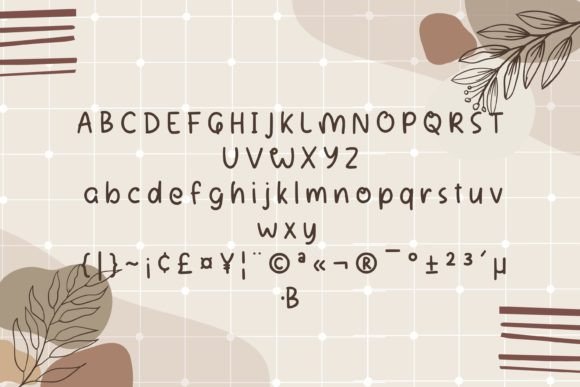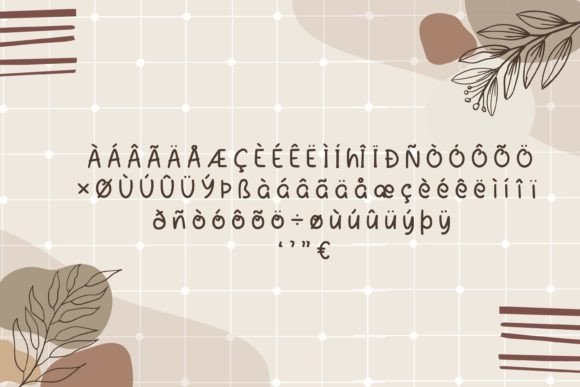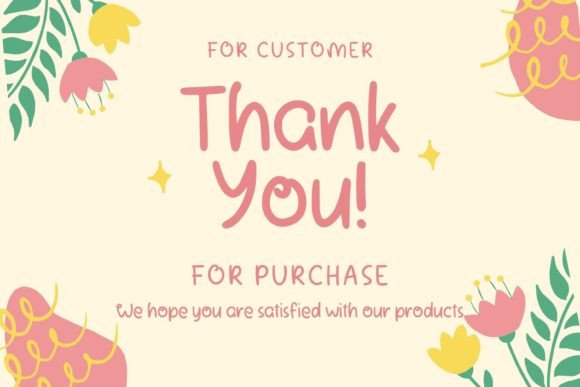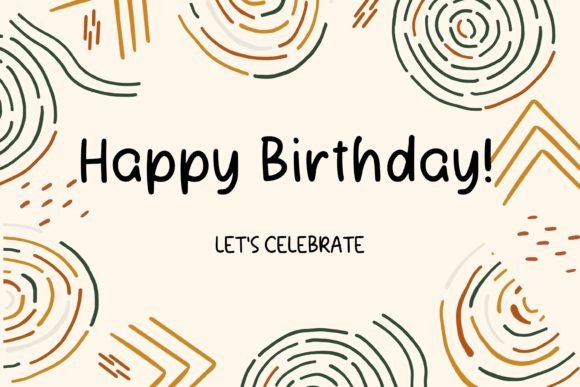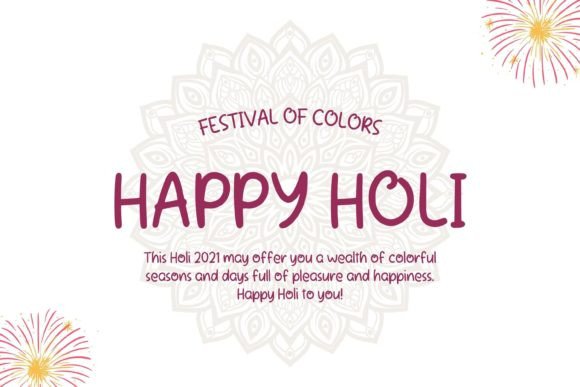
Wasteland Font
About Wasteland Font
Wasteland emerges as a delicate, playful, and flowing handwritten font that adds a touch of whimsy to your designs. Characterized by beautiful and well-balanced letterforms, this font is a versatile choice that seamlessly complements a wide range of design concepts. Incorporate Wasteland into your most creative ideas, and observe how it breathes life into your projects, infusing them with a unique and vibrant energy.
The flowing and playful nature of Wasteland makes it suitable for various applications, from casual and lighthearted projects to more sophisticated designs. Its adaptability allows it to enhance the visual appeal of a diverse array of creative endeavors.
In summary, Wasteland is more than just a font; it’s a design element that introduces a delicate and playful touch to your projects. Whether used for digital or print media, its well-balanced characters and whimsical charm make Wasteland a valuable asset for designers seeking to infuse a lively and creative spirit into their work, ensuring that their ideas come alive with a touch of personality.